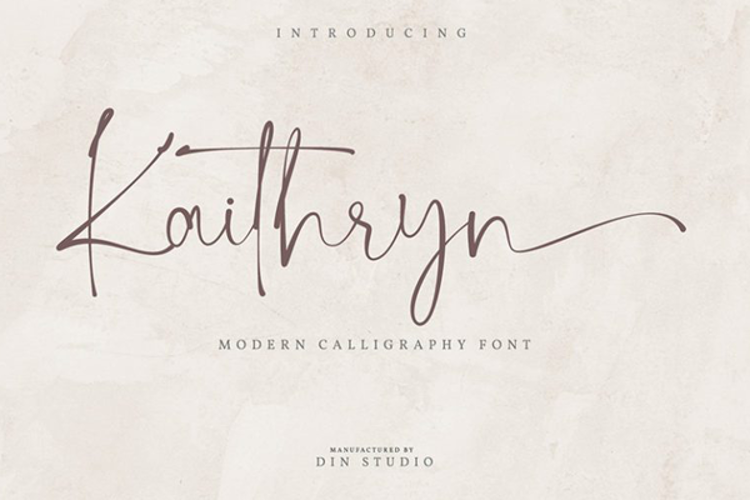
Kaithryn Font
Let’s dive deeper into the details of the modern calligraphy font – Kaithryn giving you a beautifully attractive typeface. The font has an authentic modern calligraphic look making it perfect for branding and digital designs.
Features include:
• Ligatures
• Stylistic Sets
• Multilingual Supports
• PUA Encoded
• Numerals and Punctuations